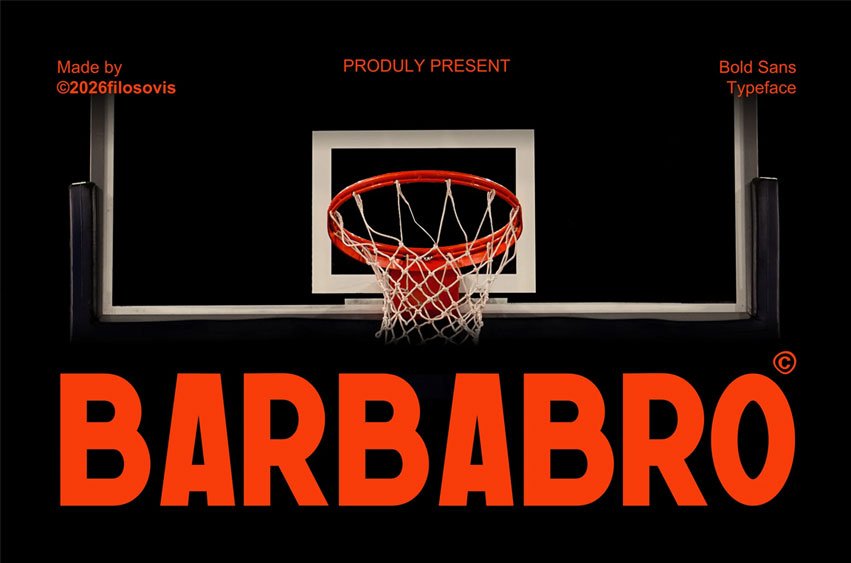
Barbabro Font is a strong and bold typeface. Barbabro delivers power, athletic, and competitive energy in every word.
The font is Perfect for sports event, basketball posters, team logos, headlines, and bold typography projects. Barbabro helps your designs stand out with strength and clarity.